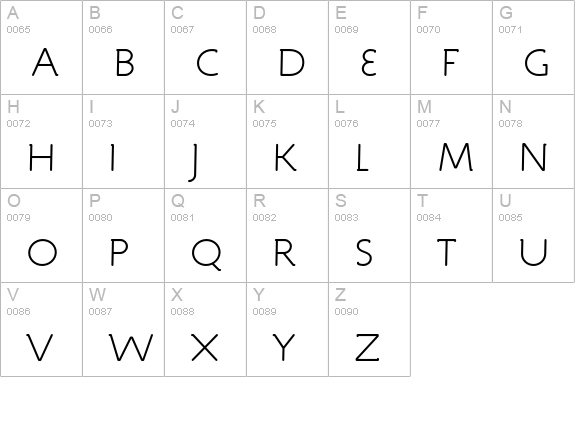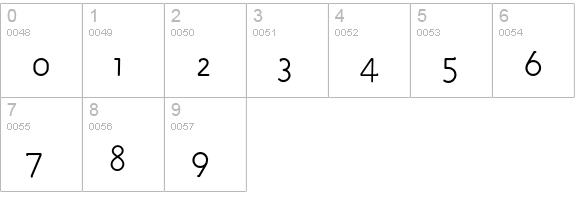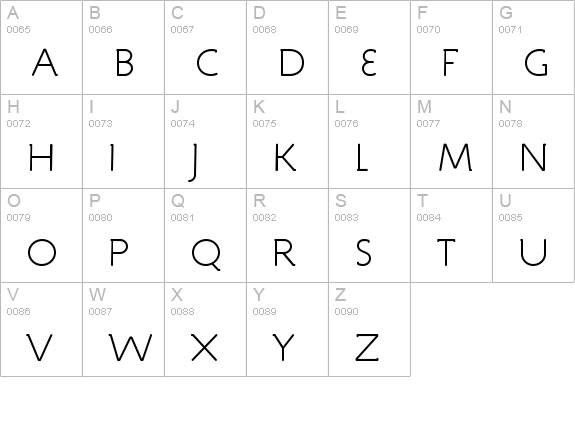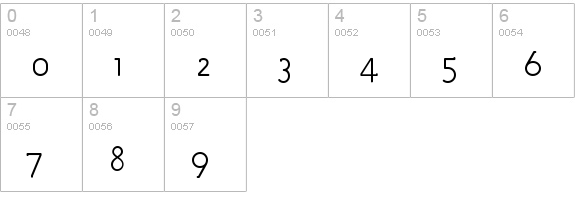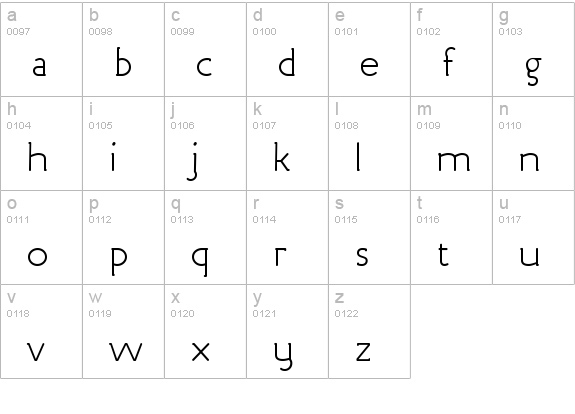
Engine-Light is a refined, elegant variant in the Engine typeface family \xE2\x80\x94 well suited to elegant body text, refined sub-headings, and luxury branding.
Engine-Light font is a modern and sleek typeface that is perfect for a wide range of design projects. Its clean lines and elegant curves make it a versatile choice for both display and body text. The font exudes a sense of sophistication and professionalism, making it ideal for branding, logos, and editorial design. What makes Engine-Light font even more appealing is that it is available for free download at FontsMarket.com. This means that you can easily access this high-quality font without any cost, making it a valuable addition to your font library. Whether you are a designer looking for a new font to add to your collection or someone in need of a stylish typeface for a project, Engine-Light font is a fantastic choice that won't break the bank. Download it today and elevate your designs with this versatile and elegant font.